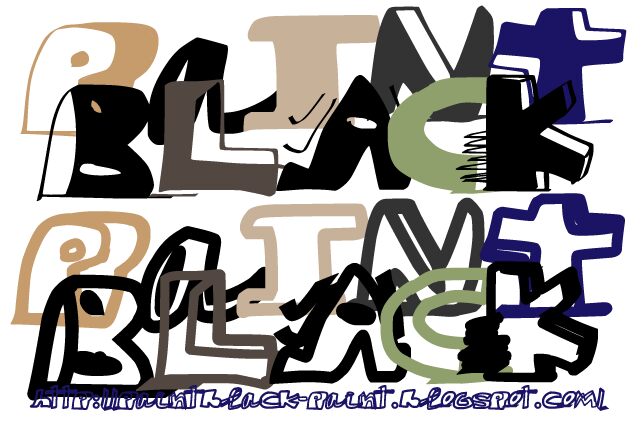
Paintblack White by Paintblack Editions is a free graffiti display font built from thick outlined strokes, broad irregular letters, and a deliberately rough hand-drawn finish. Rounded sections swell against sudden angles, and several forms lean or overlap, so the lettering resembles a quick marker sketch turned into a chunky cartoon logo with an uneven outline.
Street-art themes make it a natural fit for posters and merchandise. Album graphics, skate branding, and event promotions can draw on the same unruly shapes, which connect music, youth culture, and handmade street graphics without relying on a literal spray-paint texture or elaborate tagging details.